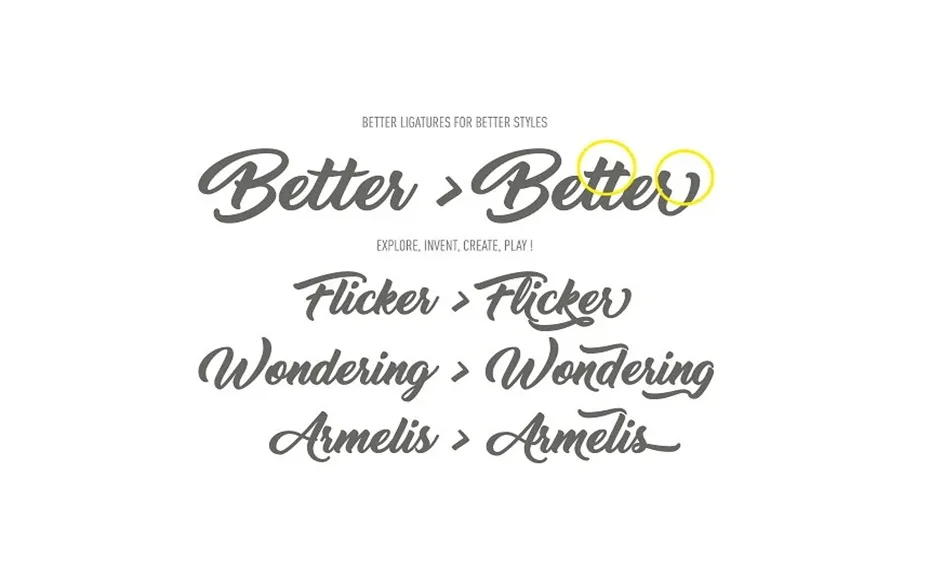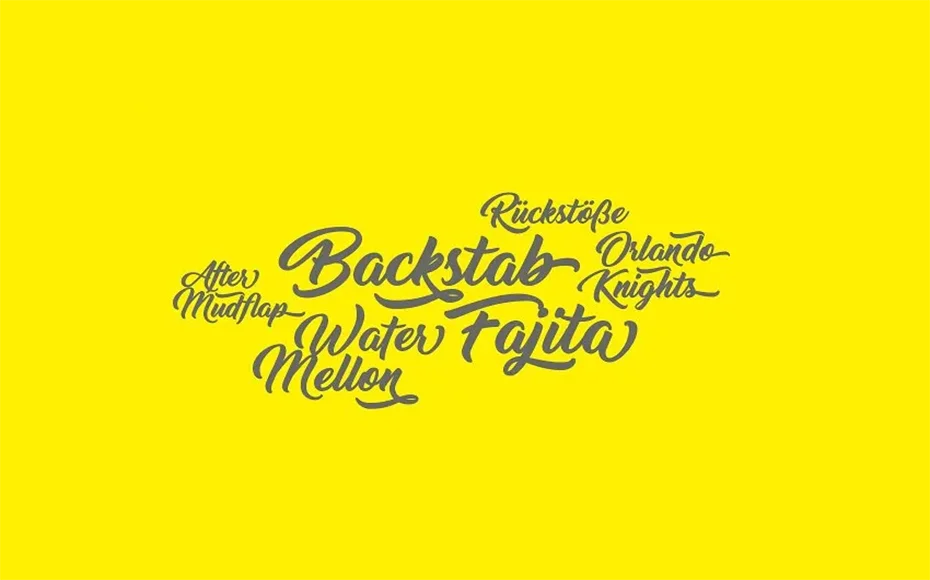
Thinking Of Betty Font Free Download
Thinking Of Betty Font is an elegant script brush typeface and its thick and solid lines make it easy to read and its conservative bends aren’t overwhelming to the eyes.
A French designer Clément Nicolle has taken the charge of creating it. While the StereoType font foundry released it for the first time on 23 October 2016.
This minor font belongs to script fonts. Where all the glyphs and charters of the Font family contain their versatile offerings.
It has an apparently smoother personality: it has a cursive but it also has soft and spiky edges.
You can use this wonderful font for different places. For example, posters, headings, unique emblems, product labels, awesome quotes, watermarks on photos, book covers, branding, company names, flyers, and many more.